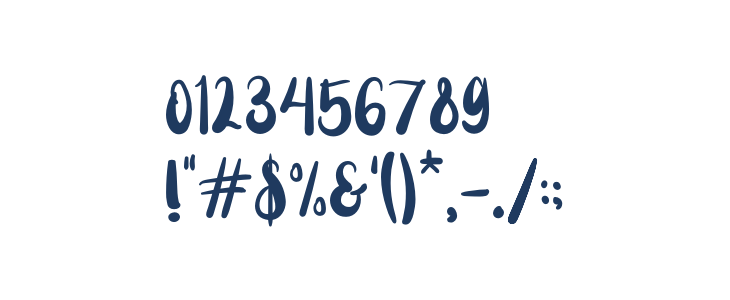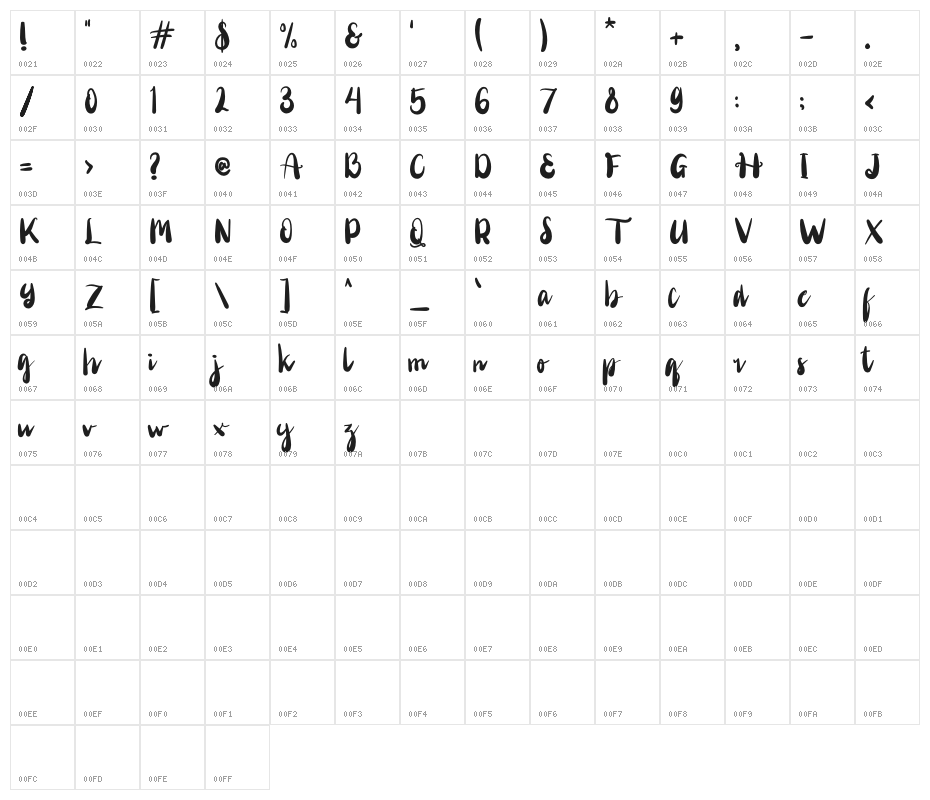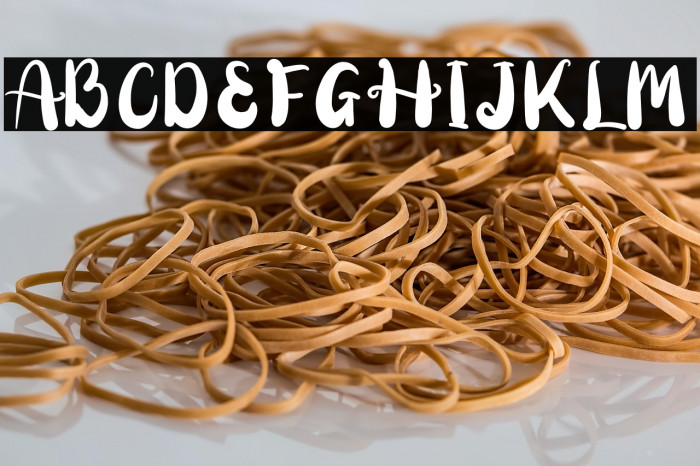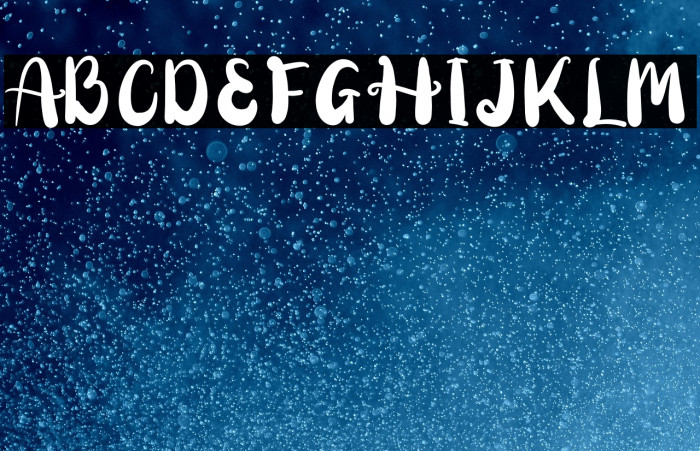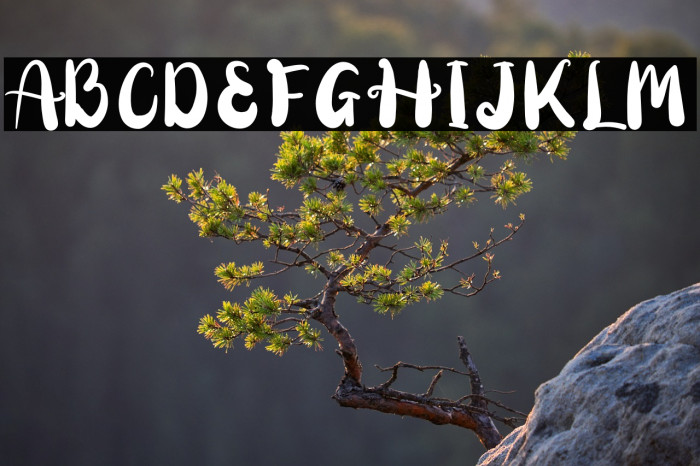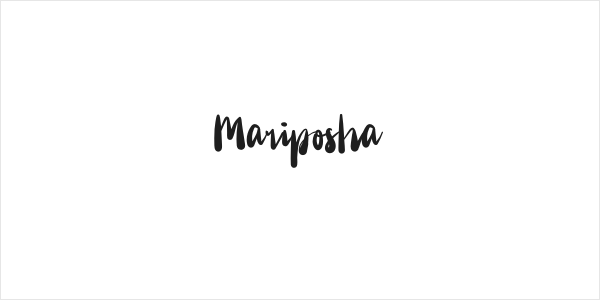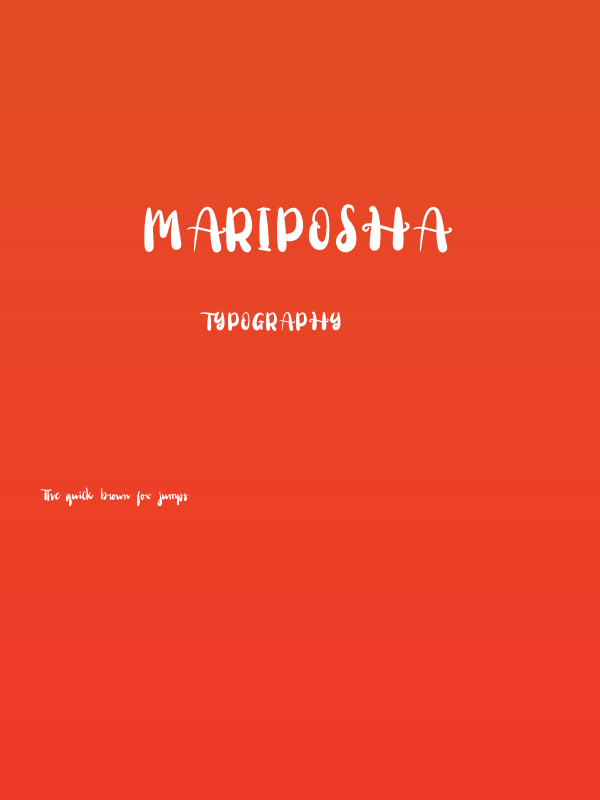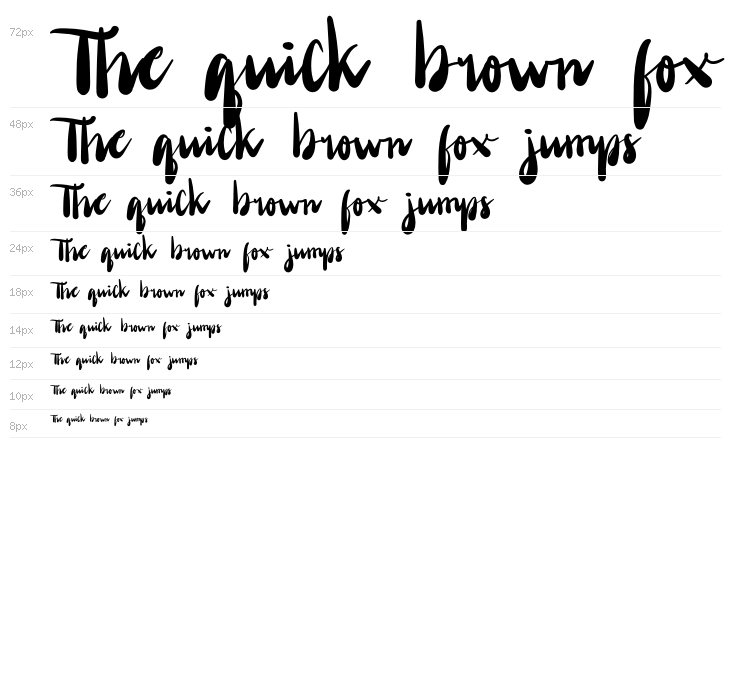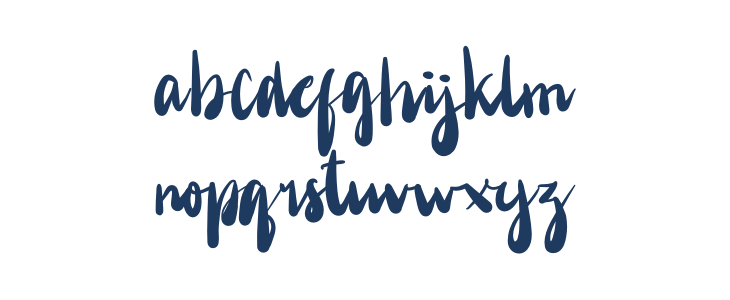
Mariposha Font
Mariposha Description
This font features a lively and expressive handwritten style, characterized by its bold and flowing strokes. The uppercase letters are dynamic, with varying stroke widths that add a sense of movement and energy. The lowercase letters maintain a cohesive flow, with some characters extending below the baseline, enhancing its casual and artistic appeal. Numbers and special characters are equally bold, ensuring consistency across all elements. The overall design is playful yet sophisticated, making it suitable for creative and informal applications.
| Proposed Projects | Ideal for greeting cards, invitations, posters, and branding projects that require a personal and artistic touch. |